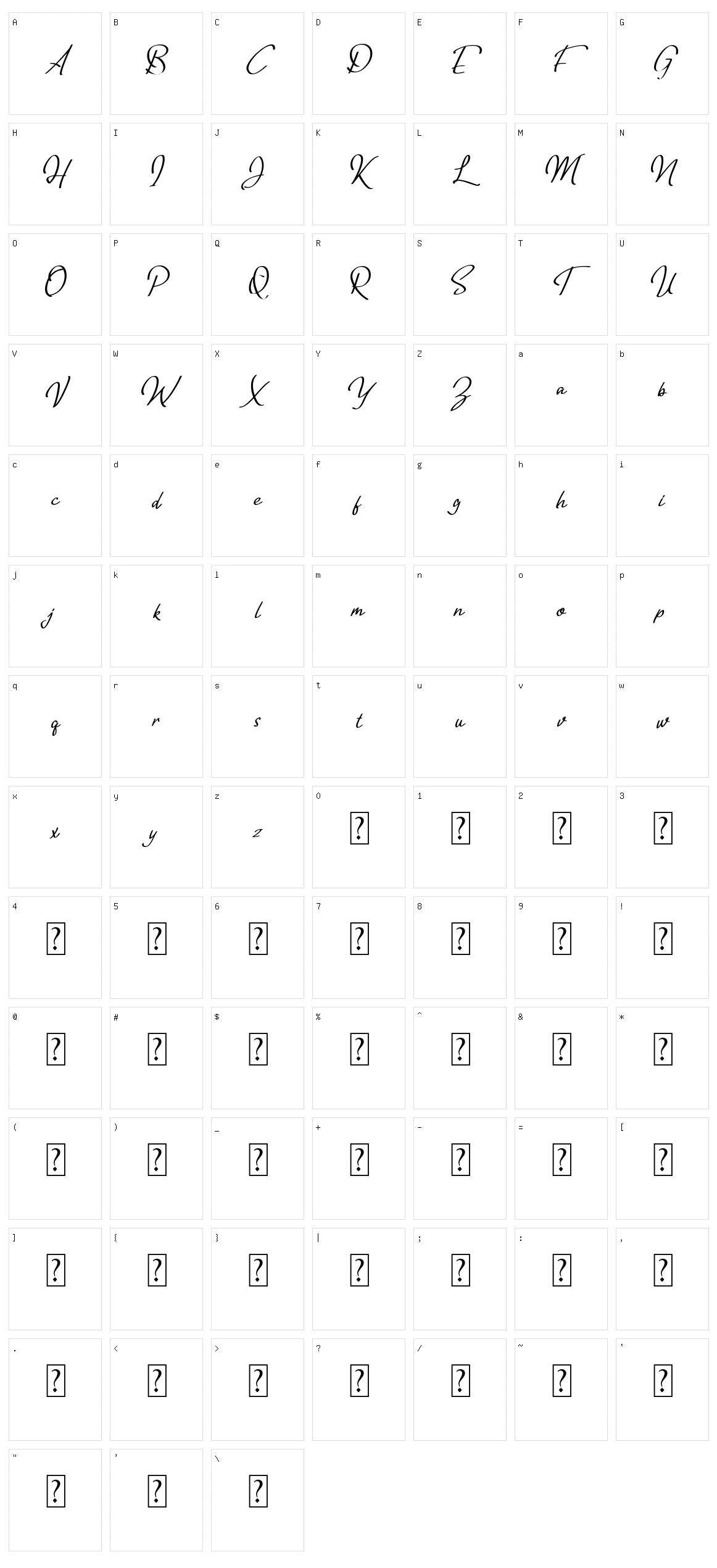
The free font Tripolitania Handwritten is carefully designed by Nico Muslib, showcasing a thoughtful balance of creativity and usability and falls under the Script font style. When you download the ZIP file, it contains only 14.23 KB of font files, making it lightweight and quick to download. Please review the license details below to understand permitted usage and distribution rights. If license information is not available, we recommend using this font for personal projects only or contacting the author directly for commercial usage permissions.